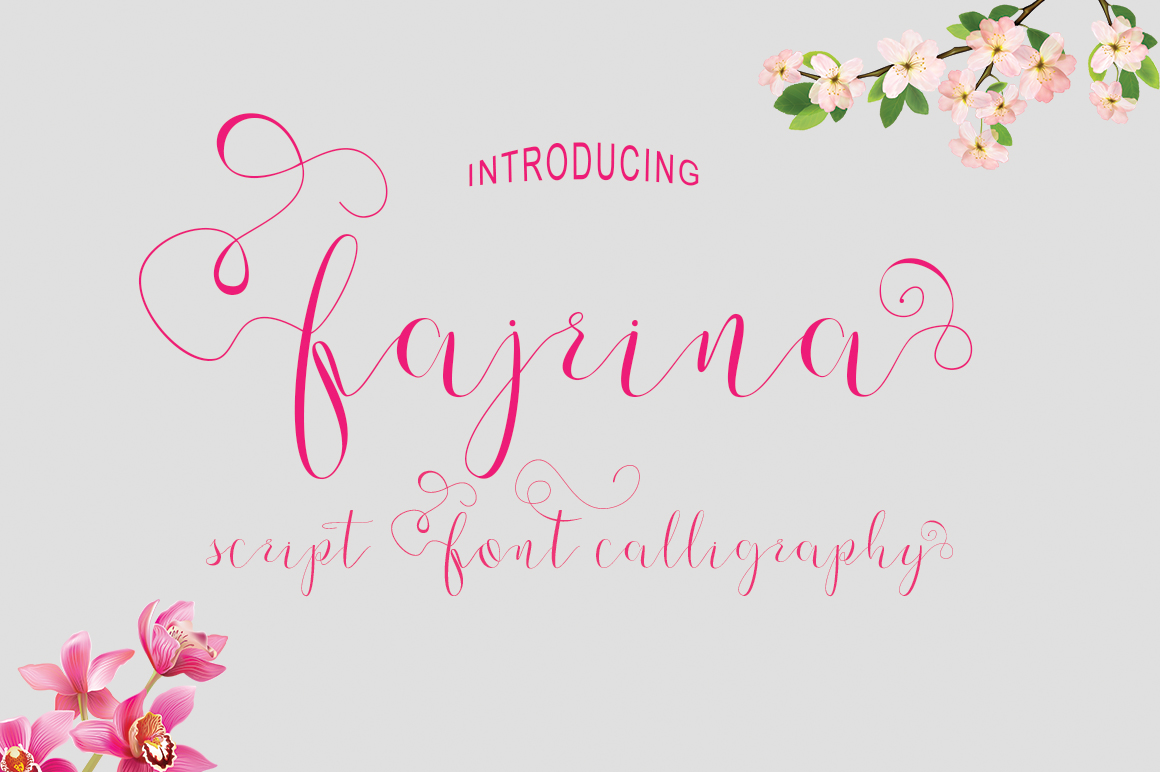
Fajrina Script
Fajrina Script Font
fajrina Scriptt is a modern calligraphy script font, with characters. OpenType touch with elegant features with stylistic alternates, ligatures, contectual alternate, separate swoosh and multiple language support. Can be used for various purposes.such as logos, wedding invitation, heading, t-shirts, letterhead, signage, labels, news, posters, badges etc.
Fajrina Script